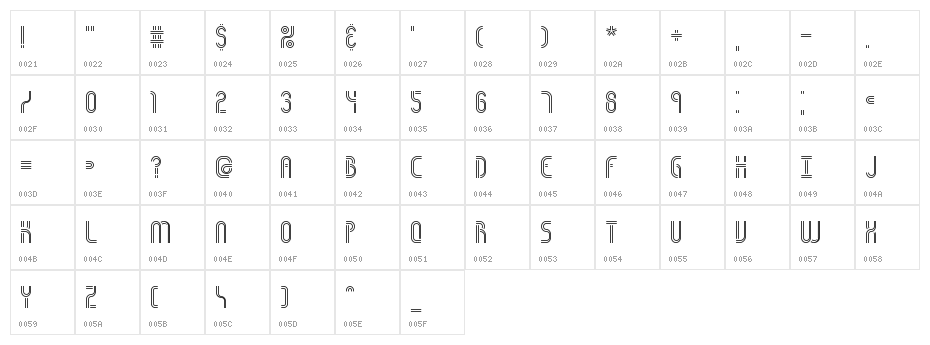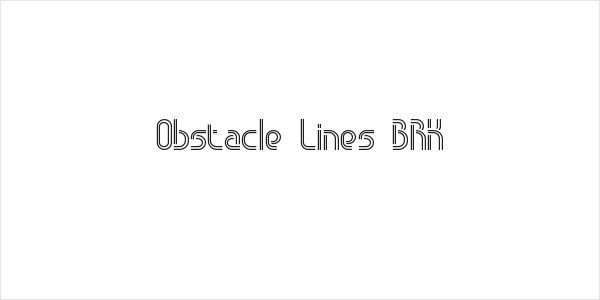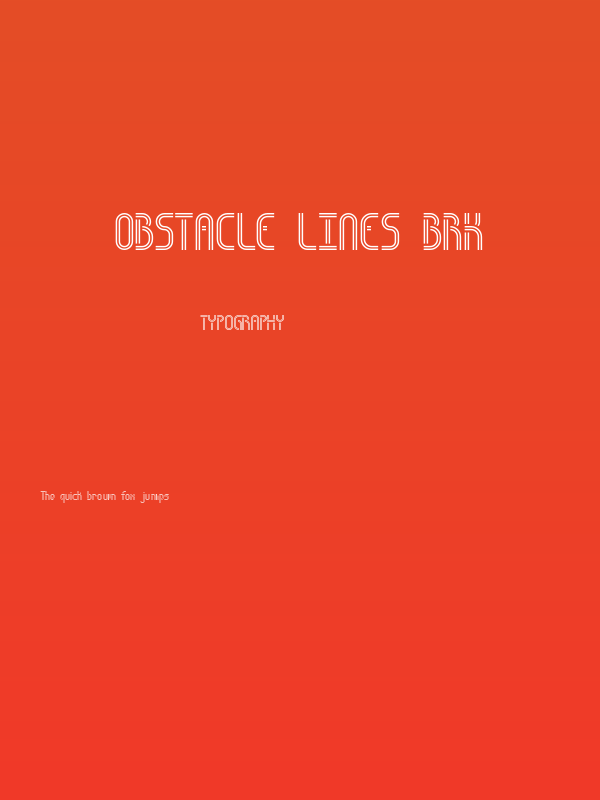
Obstacle Lines BRK Font
Obstacle Lines BRK Description
This font features a unique and intricate design characterized by multiple parallel lines forming each character. The geometric and linear style gives it a modern and futuristic appearance. The uppercase and lowercase letters maintain a consistent height, while the numbers and special characters follow the same linear pattern. The overall design is symmetrical and balanced, with a distinct emphasis on horizontal and vertical lines. This font stands out due to its decorative and artistic nature, making it suitable for creative and bold design projects.
| Proposed Projects | Ideal for futuristic branding, posters, album covers, and digital artwork. |